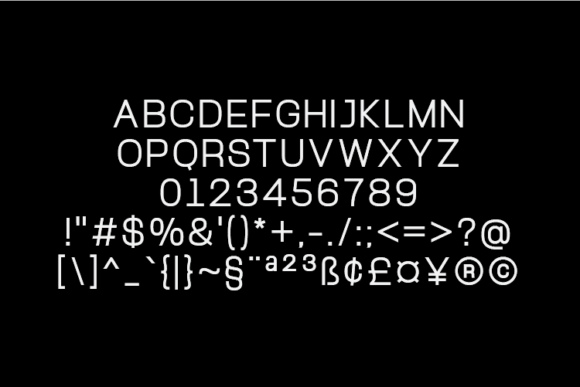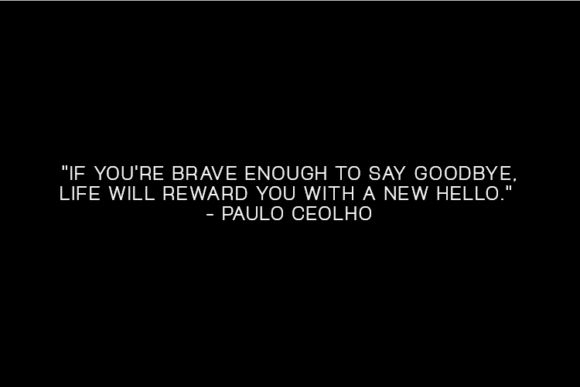
Introduction to Roughmoon Font
Roughmoon is a stunning sans serif to compliment every project you’re working on.
Use it to create beautiful headings, gorgeous invitations, stunning logos, and so much more Perfect for displays, headers, invitations, save the dates, weddings, and so much more.
Key Features of Roughmoon Font
Why Choose Roughmoon Font?
Roughmoon Font offers exceptional quality and versatility, making it a valuable addition to your design toolkit. Whether you’re creating for personal projects or commercial use, Roughmoon Font delivers professional results.